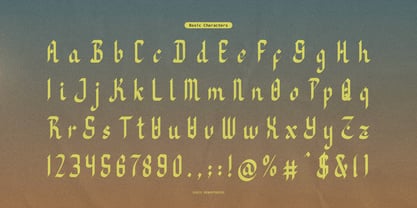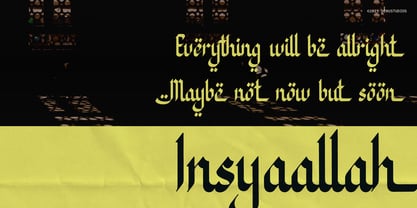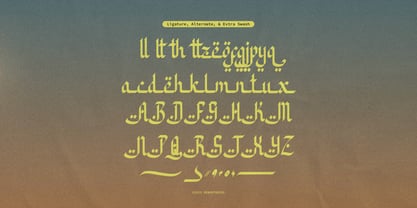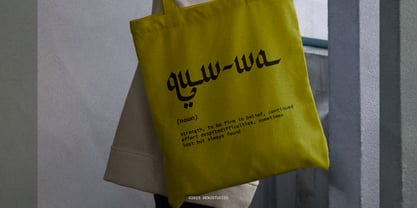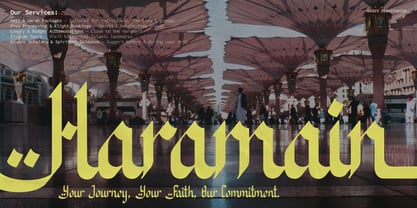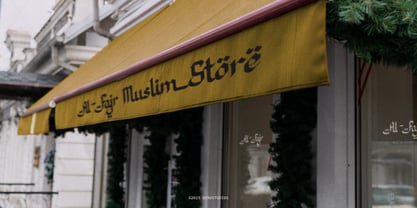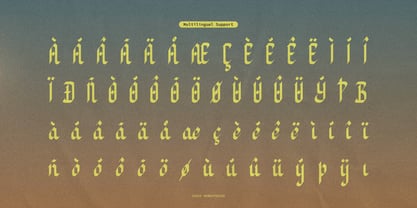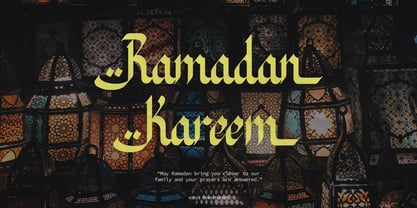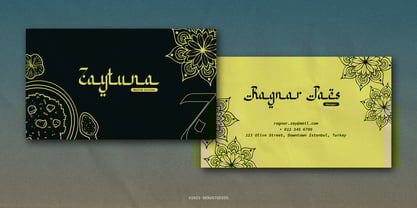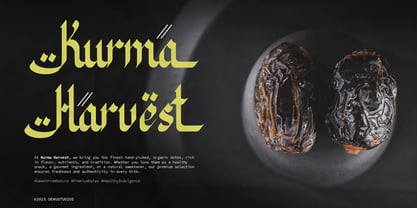
Al Laylie
by Denustudio
The Al Laylie Font Family was designed by Dede Nugraha and published by Denustudio. Al Laylie contains 1 styles.
Al Laylie | Islamic Style Font, from Denustudios, suitable for any projects such as: logos, branding projects, homeware designs, product packaging, mugs, quotes, posters, shopping bags, t-shirts, book covers, name card, invitation cards, greeting cards, label, photography, watermark, special events, and all your other lovely projects that need Islamic Style Font a taste.
• Alternate and Ligature